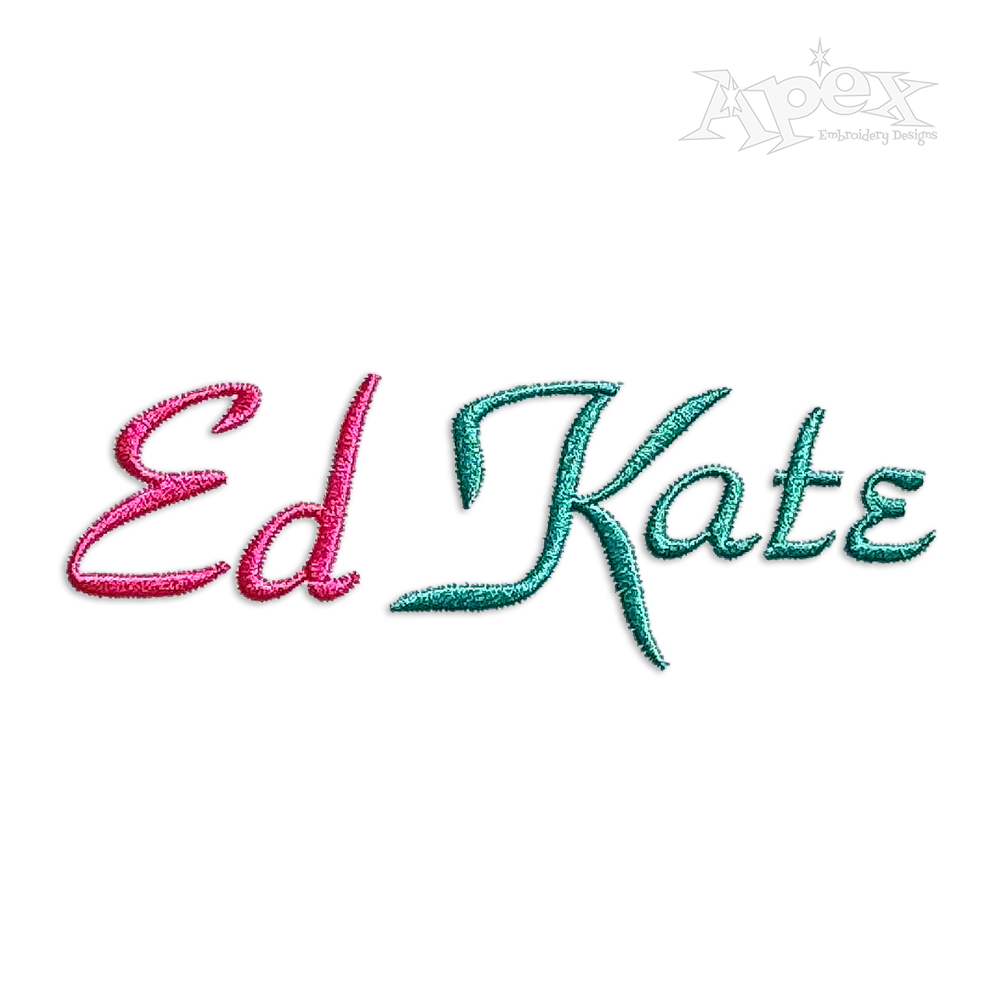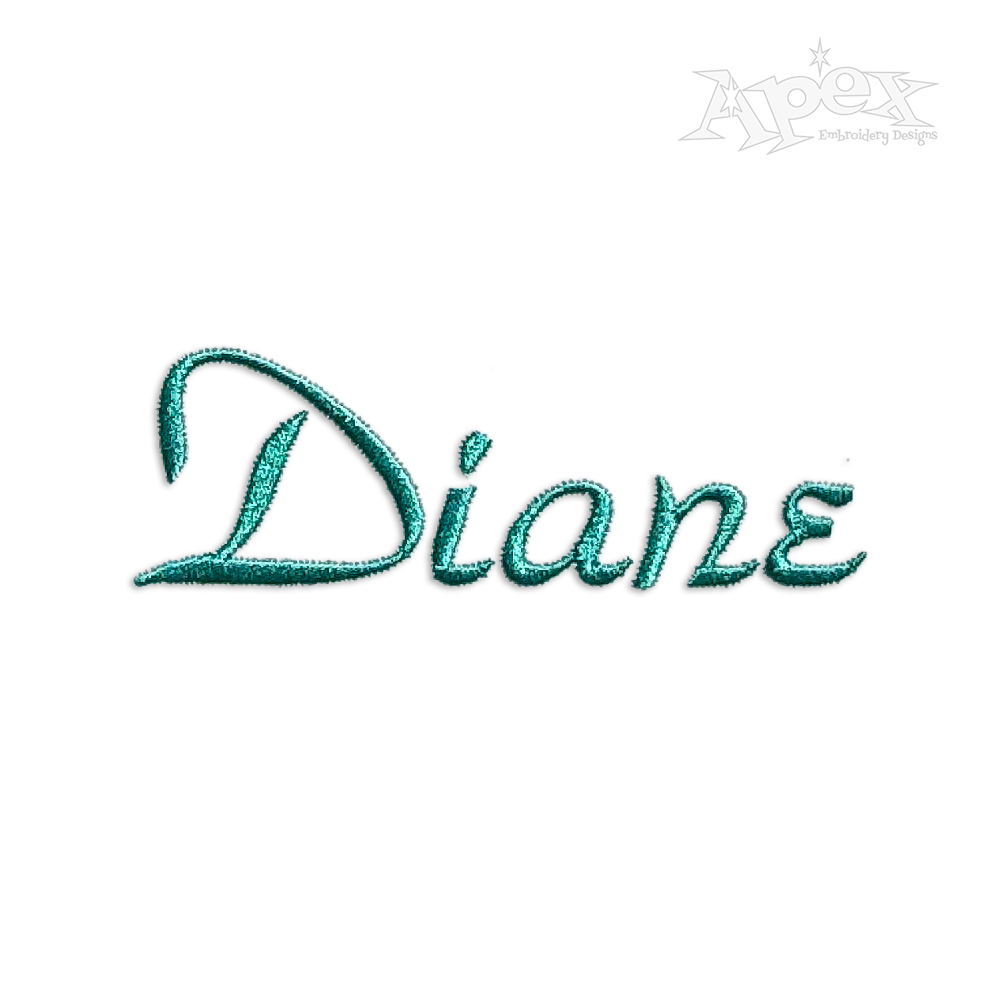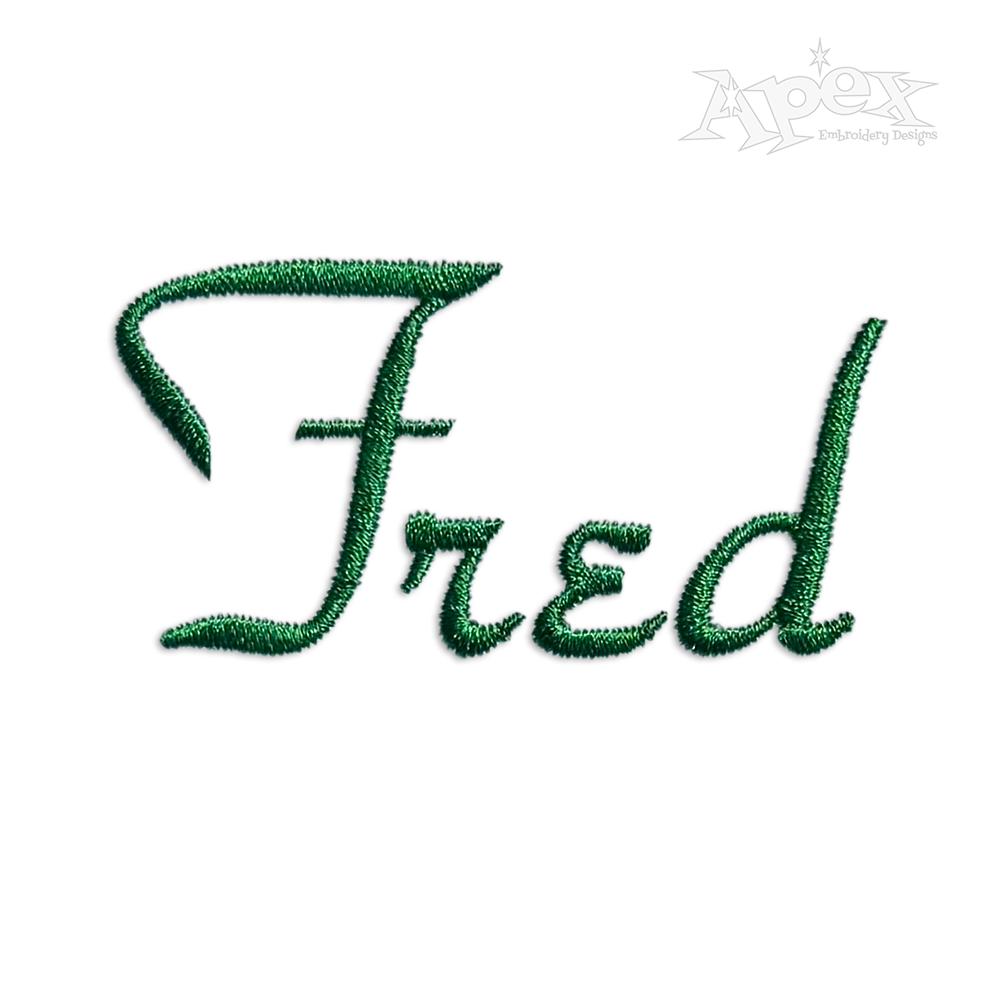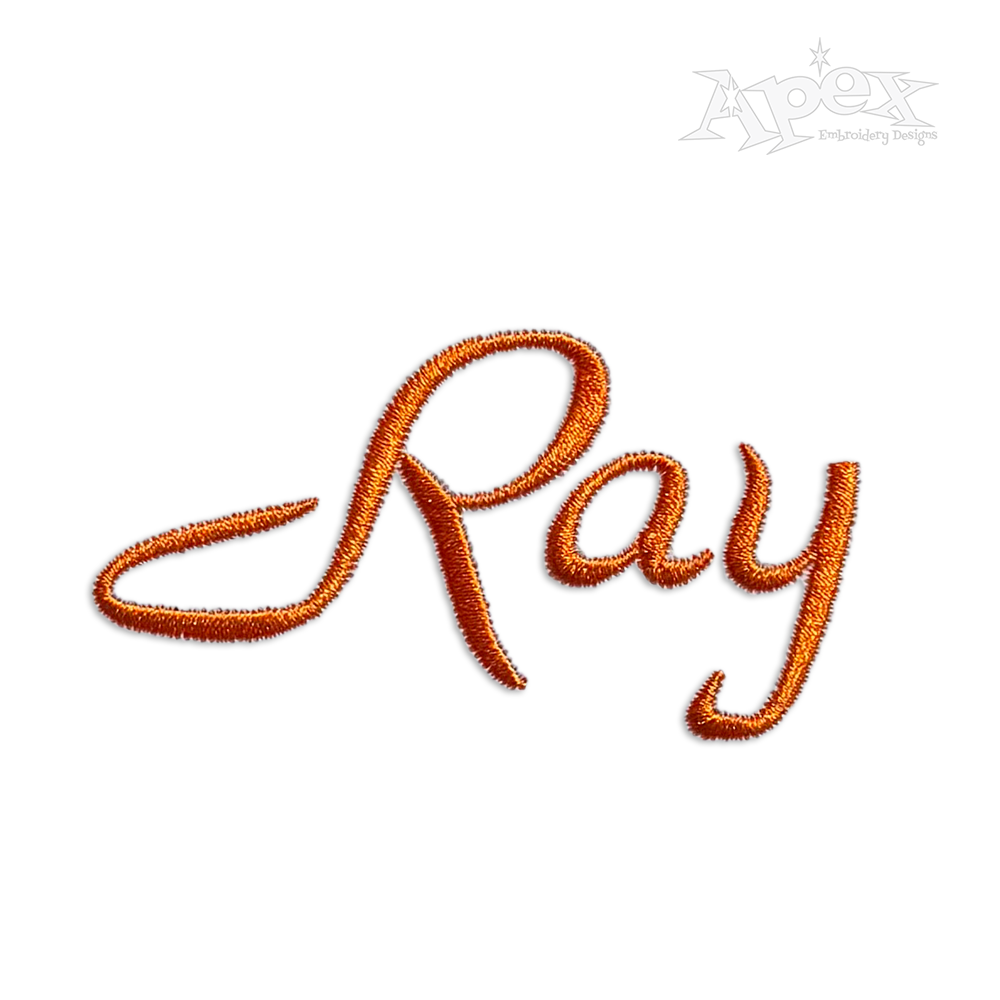
Park Ave Embroidery Font
Reminiscent of mid-century Manhattan elegance and bespoke engraved stationery, the Park Ave Embroidery Font captures an aura of effortless, high-society charm. When digitizing this alphabet, our atelier set out to translate the fluid grace of traditional American calligraphy into lustrous, dimensional needlework. The resulting letterforms balance graceful, looping majuscules with poised, legible minuscules, bringing a stately presence to every monogram, personalized inscription, and bespoke heirloom.
Project Ideas for Park Ave Embroidery Font
The timeless calligraphic stance of Park Ave lends itself naturally to elevated textiles and refined artisan creations:
- Heirloom Table Linens: Stitch crisp single initials or classic three-letter monograms on hemstitched dinner napkins, cocktail runners, and festive holiday place mats.
- Bespoke Resort & Daywear: Add understated personal initials to lightweight linen button-downs, crisp poplin cuffs, and tailored sun hats.
- Bridal & Luxury Gifting: Personalize silk dressing robes, velvet cosmetic travel pouches, and heirloom ring pillows with the couple's monogram or wedding date.
- Bedding & Bath Accents: Embroider plush Egyptian cotton bath sheets, waffle-weave guest towels, and pillow sham borders for a curated five-star hotel aesthetic.
- Keepsake Gifting: Utilize the graceful numeral suite to stitch commemorative dates on milestone quilts, christening shawls, and anniversary gifts.
Achieving the perfect balance with Park Ave relies on deliberate positioning that honors its classic slant and fluid swashes:
- Cocktail Napkin Diagonals: Align the monogram at a 45-degree angle in the bottom-right corner, inset approximately 1.5 to 2 inches from the hem for refined symmetry.
- French Cuffs & Collar Tabs: Utilize the 1-inch scale for discreet, executive monogramming along shirt cuffs or inner collar plackets.
- Center Chest & Left Breast: Position monograms 7 to 9 inches down from the shoulder seam on luxury robes, polo shirts, or structured denim jackets.
- Pillow Sham Borders: Position the 1.5-inch majuscules centered horizontally across sham flanges or centered gracefully on boudoir accent pillows.
Park Ave Craft & Letterform Details
True embroidery artistry lives in the subtle mechanics of the stitch, and Park Ave was digitized with meticulous attention to pathing, turn angles, and thread dynamics. Traditional calligraphic scripts can easily suffer from bunched thread clusters at crossing points or fragile hairlines that disappear into fabric pile. To solve this, we hand-engineered each satin stitch column with progressive density tapering, ensuring slender entry strokes swell effortlessly into bold, light-catching curves.
Beneath the surface, a calibrated contour underlay anchors the fabric weave, providing smooth dimensional loft without pulling or distortion. The delicate entry loops and sweeping terminal swashes finish with clean, crisp needle points that preserve legibility while allowing the lustrous sheen of your embroidery thread to shine brilliantly.